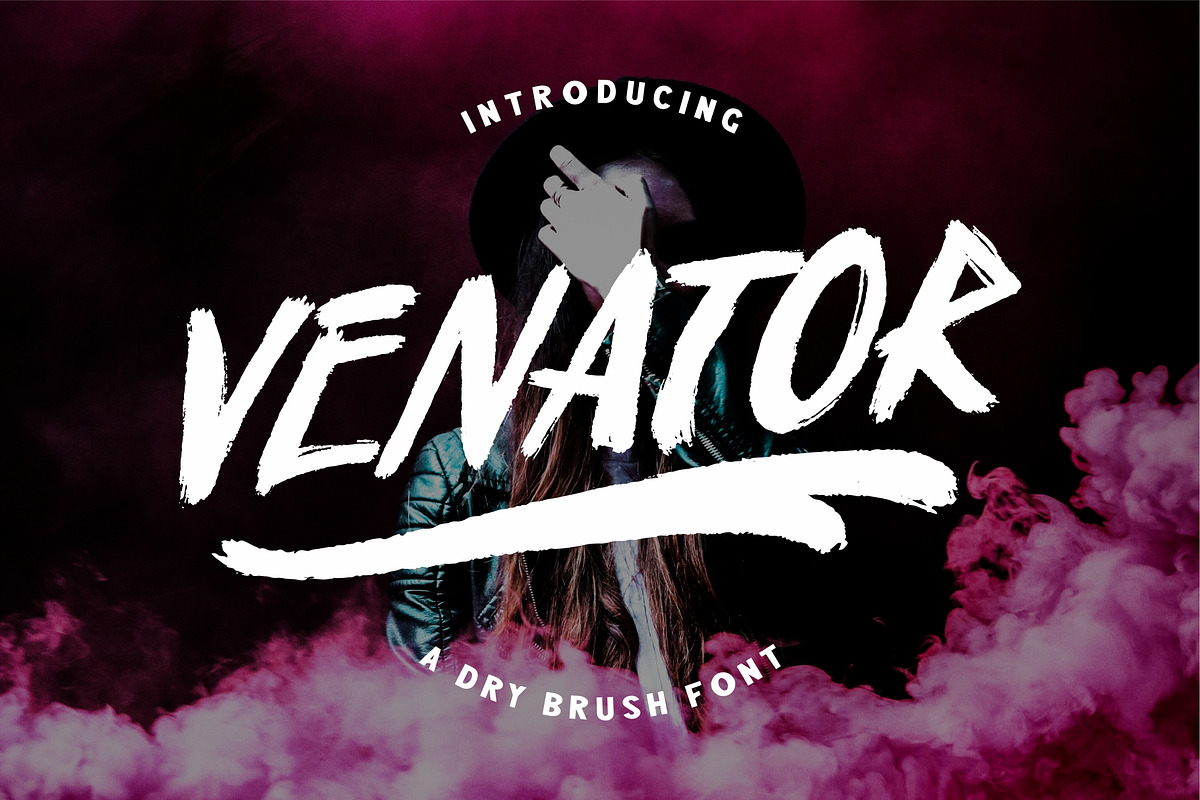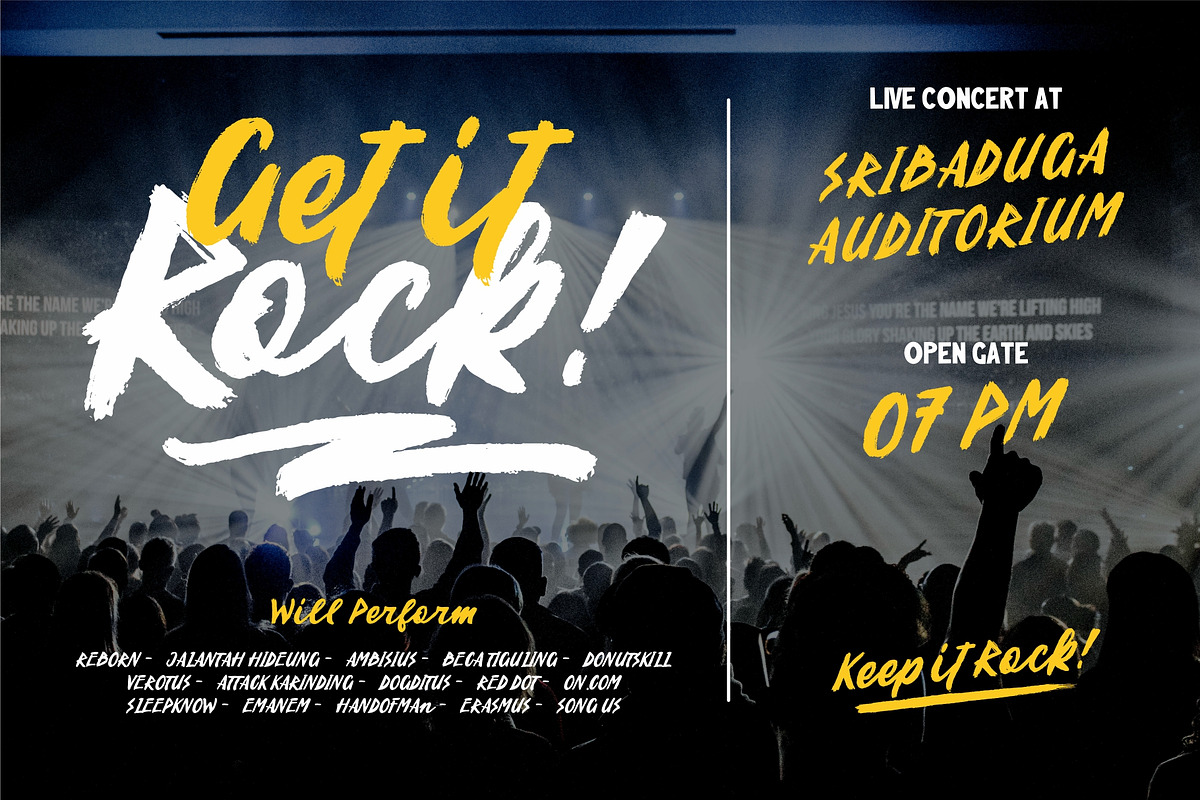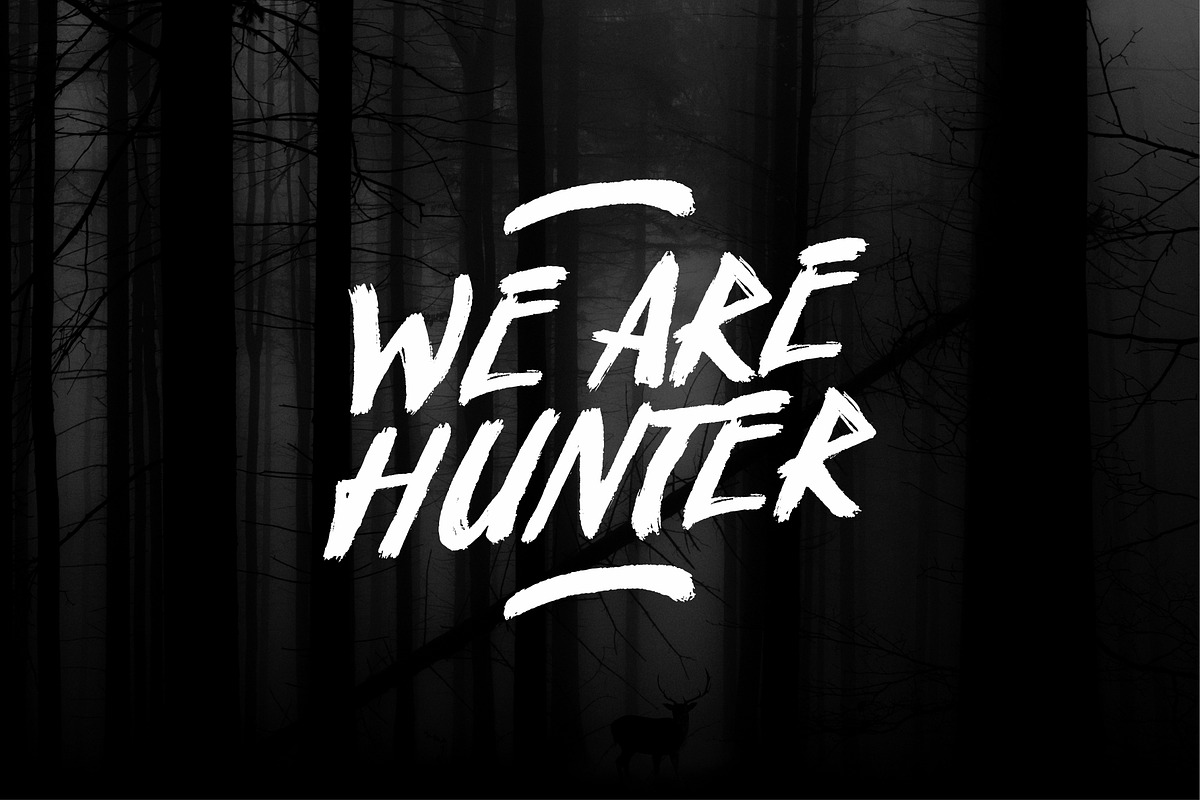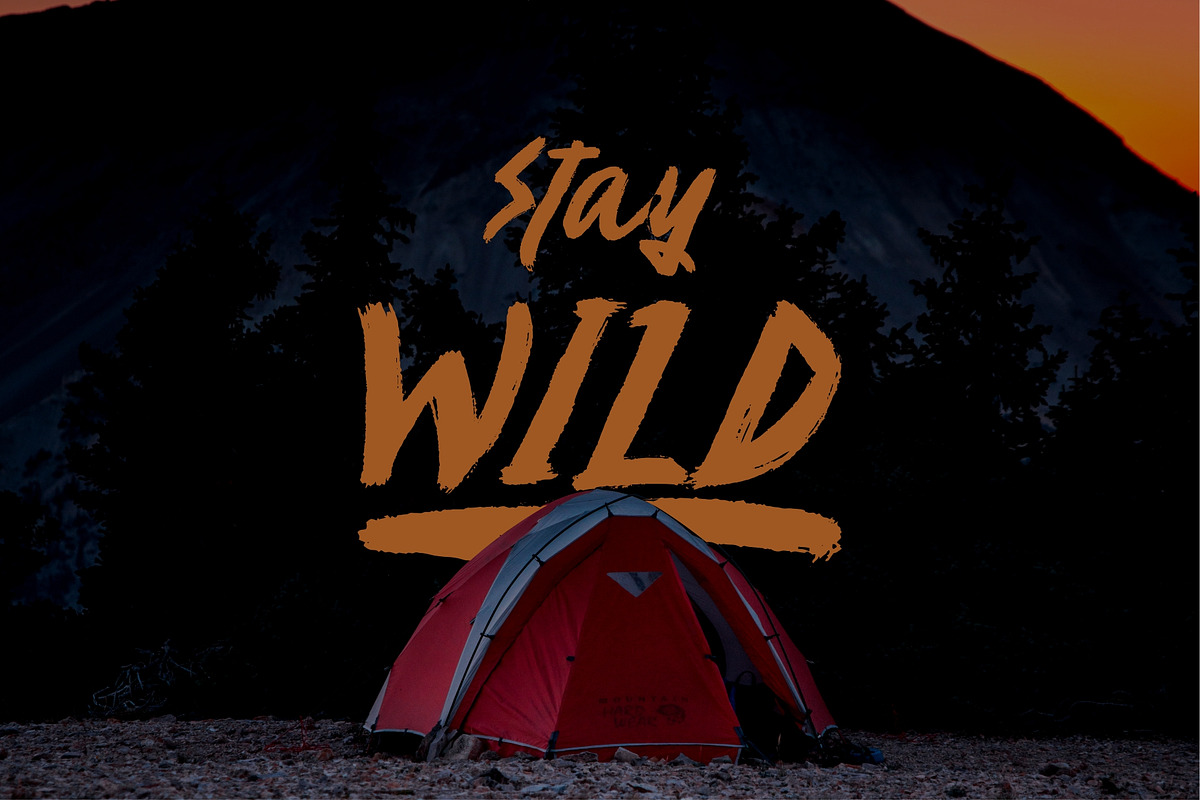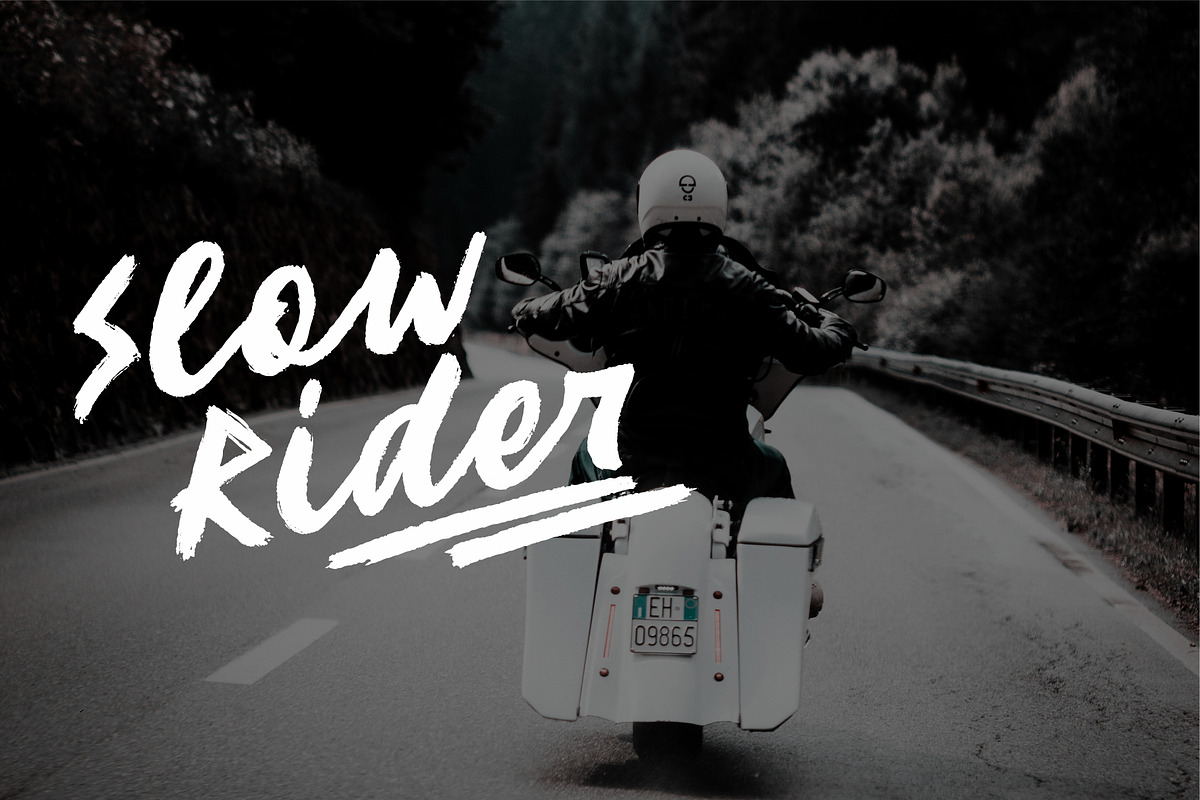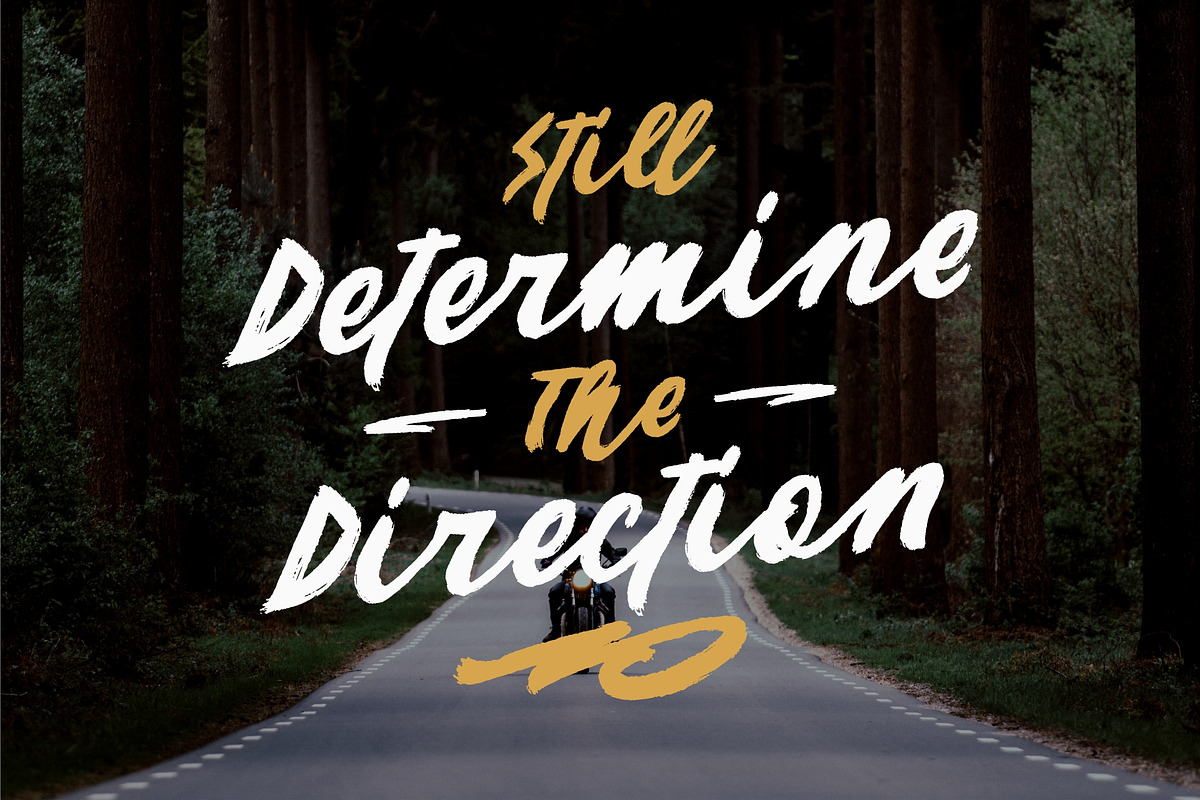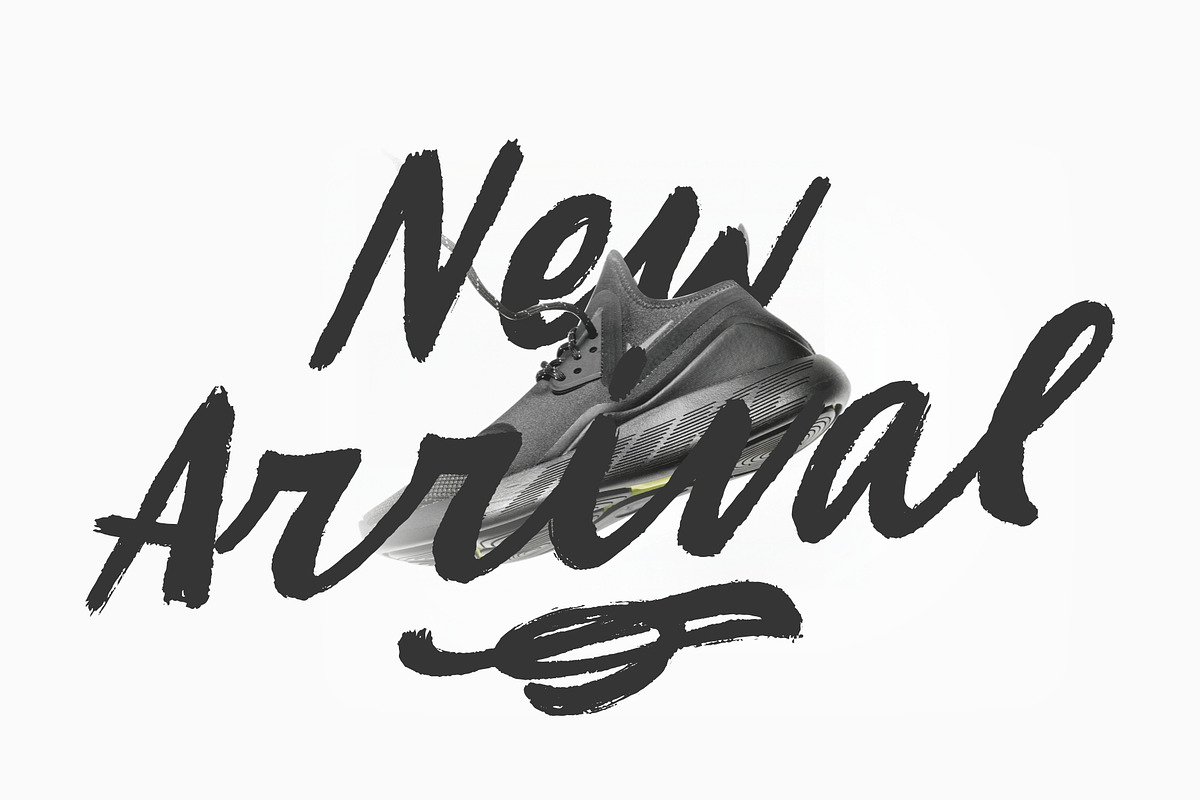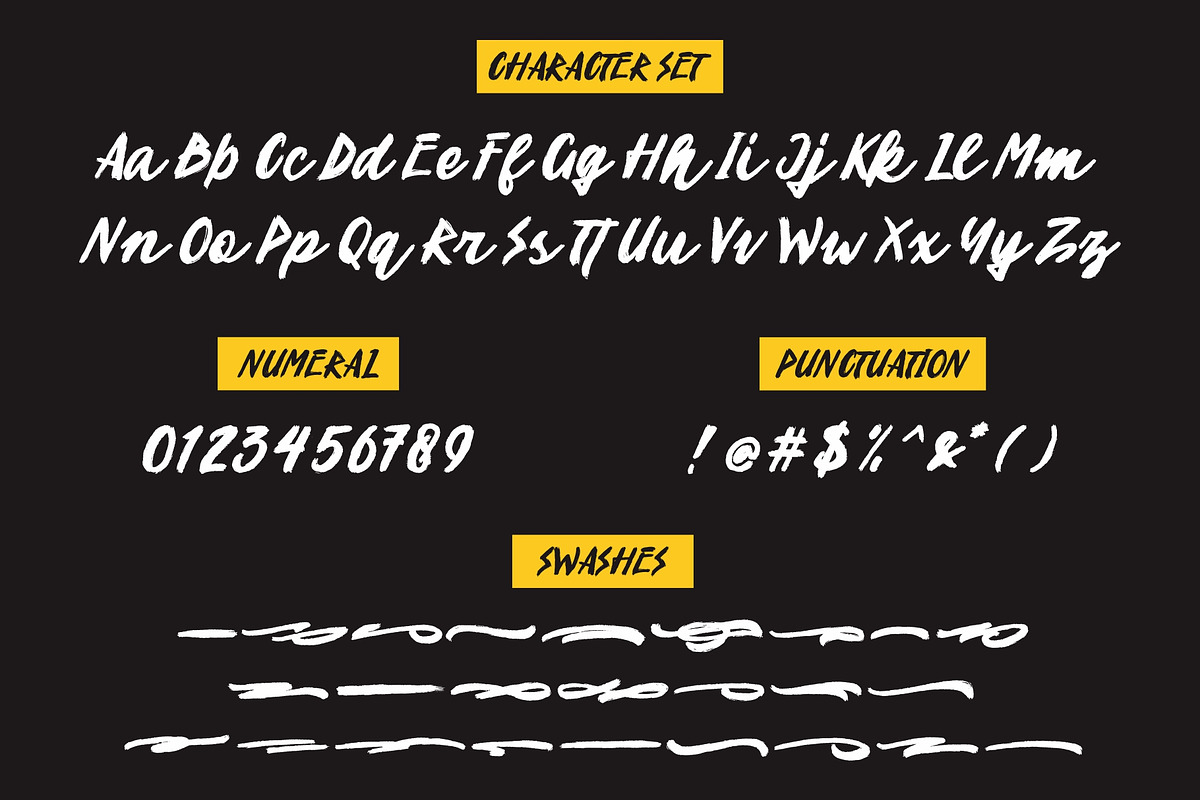
VENATOR Brush Font
Introducing VENATOR with dry brush style!
VENATOR combines attractive curves with a fresh urban edge; delivering a stylish script which is guaranteed to add an eye-catching appeal to your logo designs, brand imagery, handwritten quotes, product packaging, merchandise & social media posts